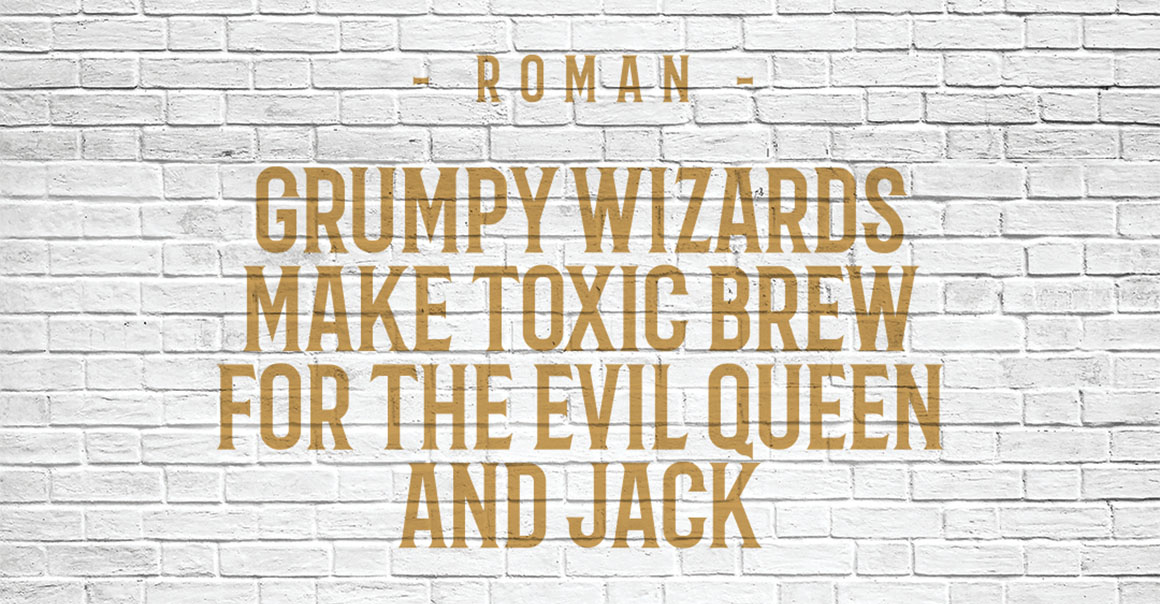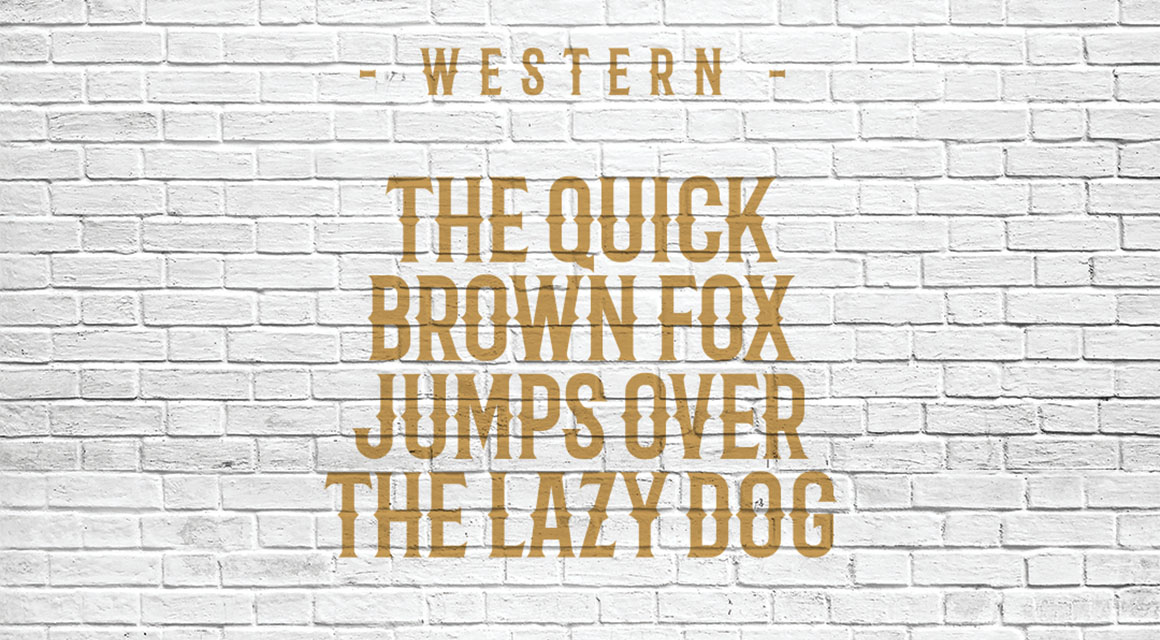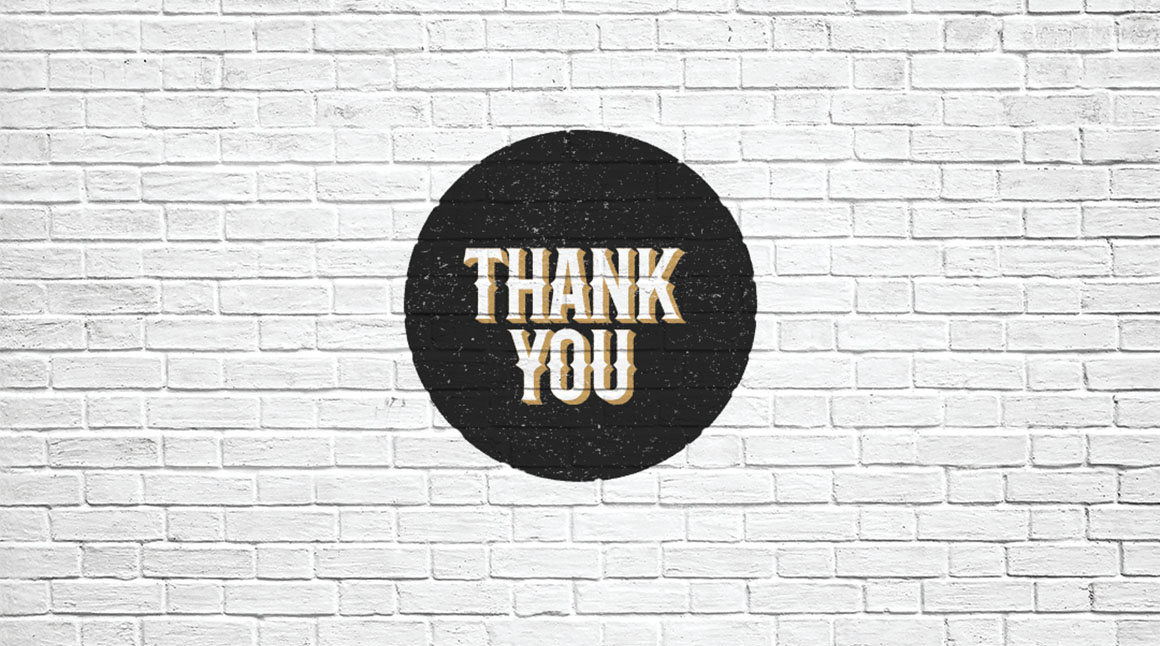
Barbaro – Free Serif Font
This cool vintage style serif custom font is from Iván Núñez. With unique vintage style and 2 alternatives is great for your new creative projects. Download and enjoy ;)